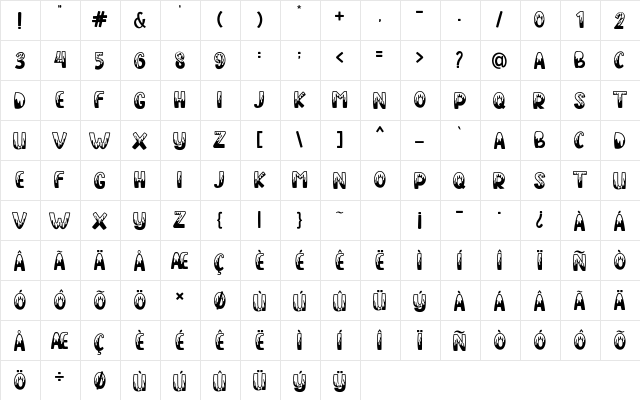
Rainy Snow Regular Font Preview
Rainy Snow Regular
Rainy Snow Regular Font Details
| Foundry | Graphicxell |
| Designer | Usman Al Baehaqi |
Design Context for Rainy Snow Typeface
Rainy Snow is a composed and adaptable typeface that performs quietly and consistently across a wide range of design contexts.